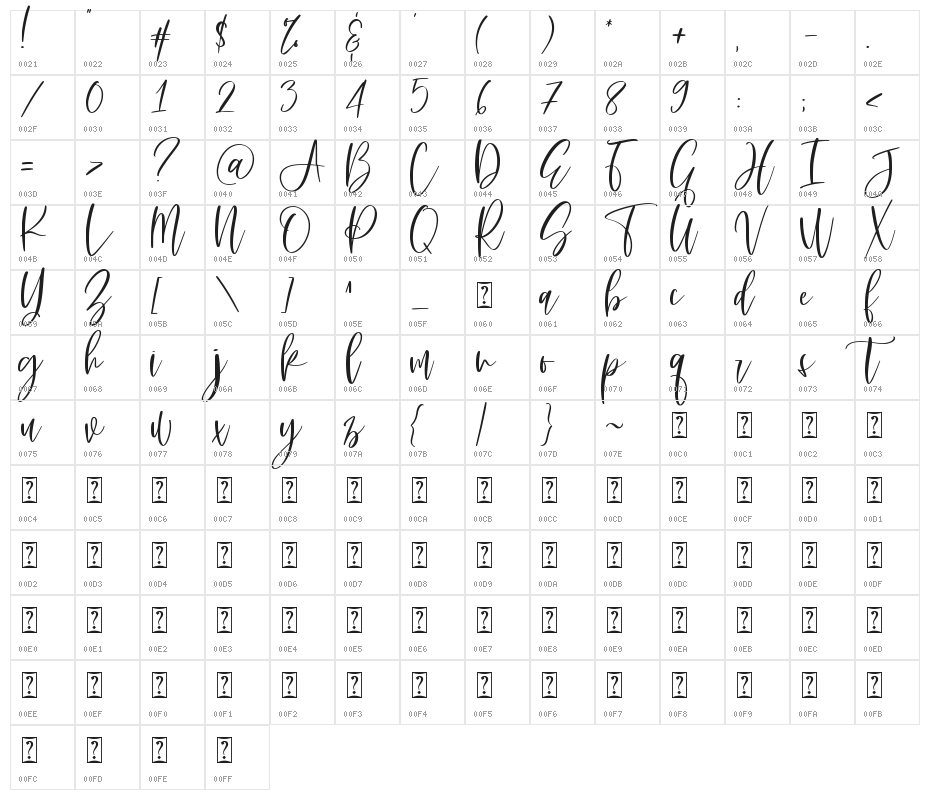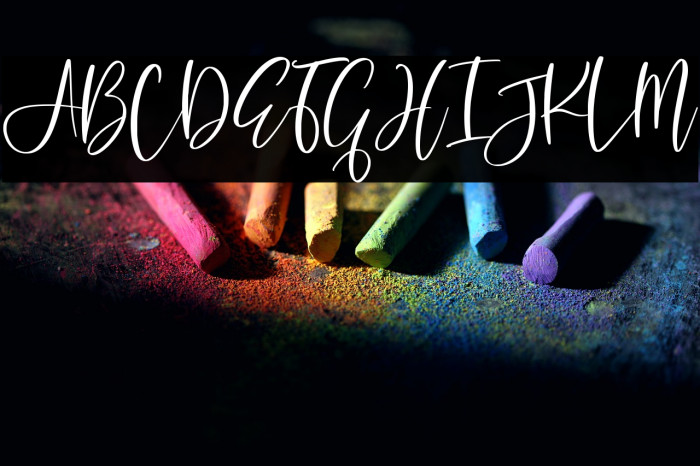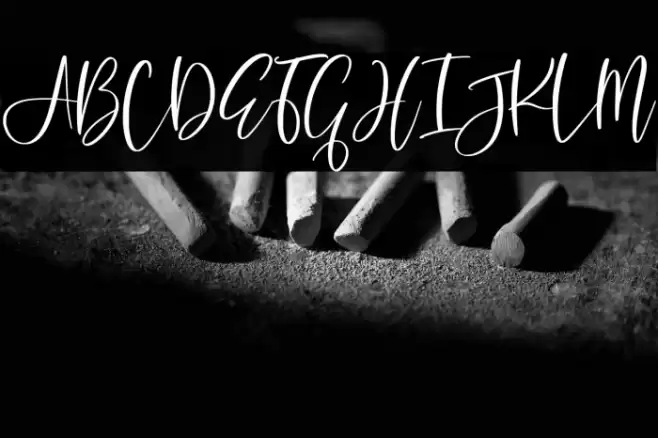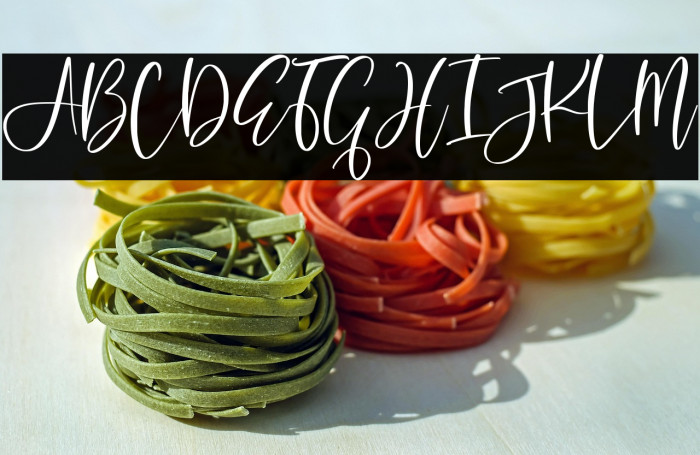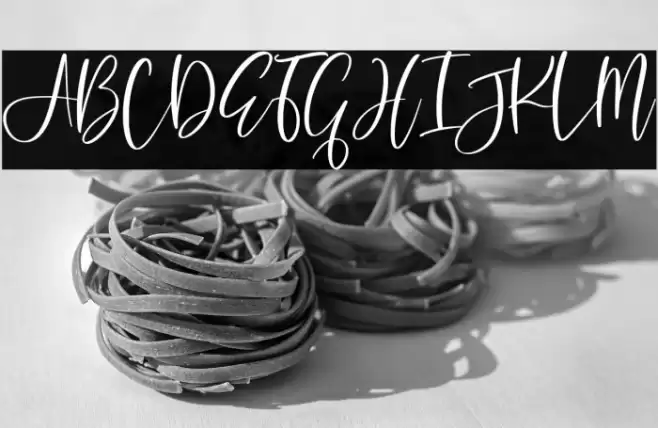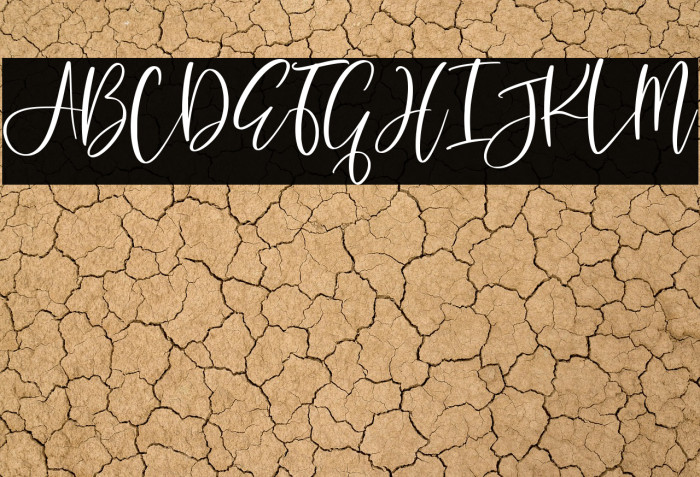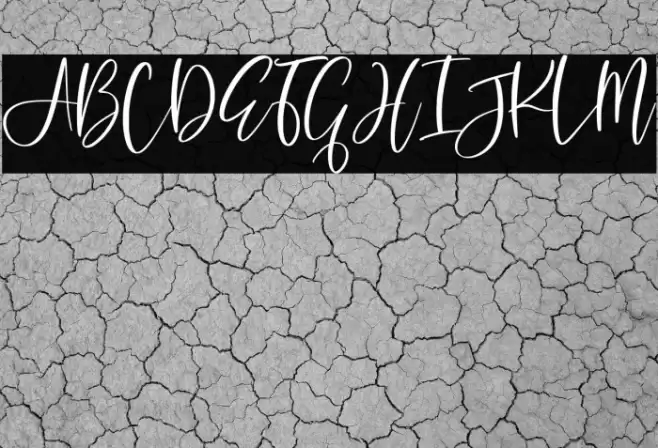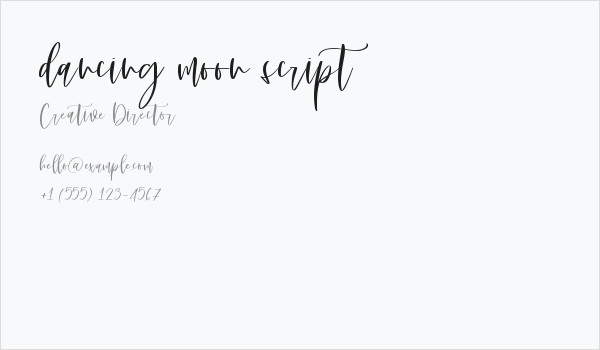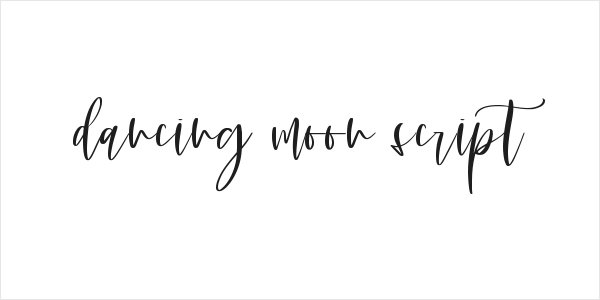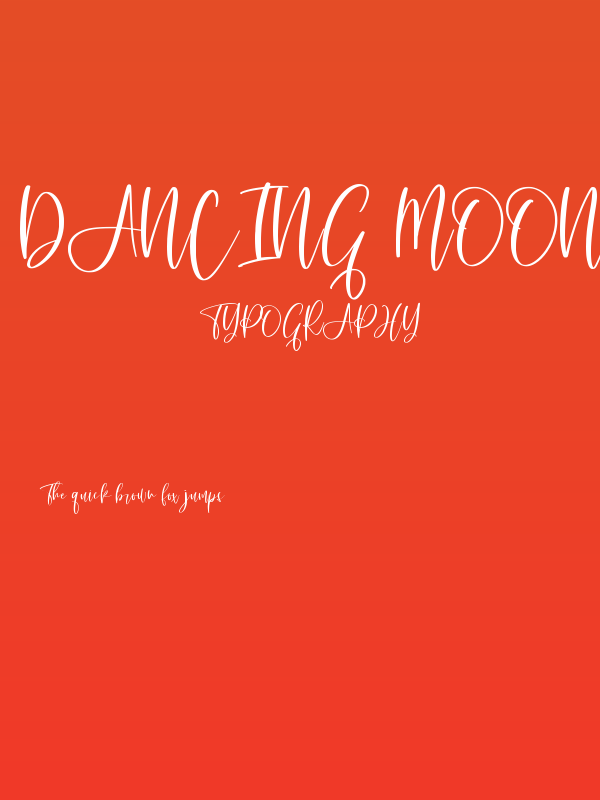
dancing moon script Font
dancing moon script Description
This elegant script font features a flowing, cursive style with a modern twist. The letters are connected with smooth, sweeping strokes, giving it a handwritten appearance. The uppercase letters are particularly ornate, with loops and flourishes that add a touch of sophistication. The lowercase letters maintain a consistent style, with a slightly more restrained elegance. The numbers and special characters are designed to match the overall aesthetic, ensuring a cohesive look across all text. This font is perfect for adding a personal, artistic touch to any project.